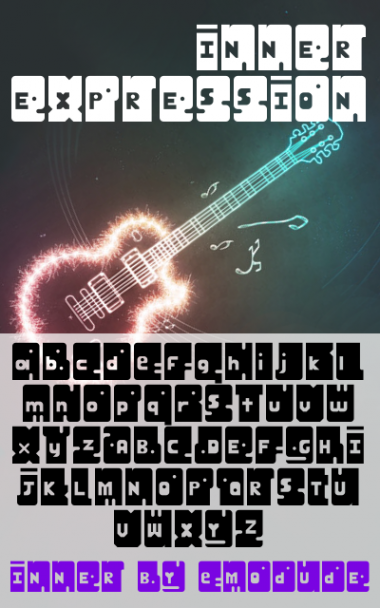
inner
3moDuDe
Inspired by some logo on a baby clothing shop. Image soon.
I can't believe I had it in me to do an lc but I did. q is slightly awkward...